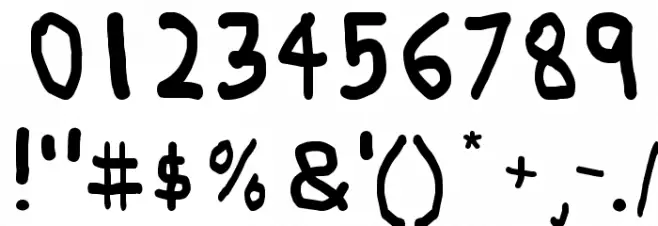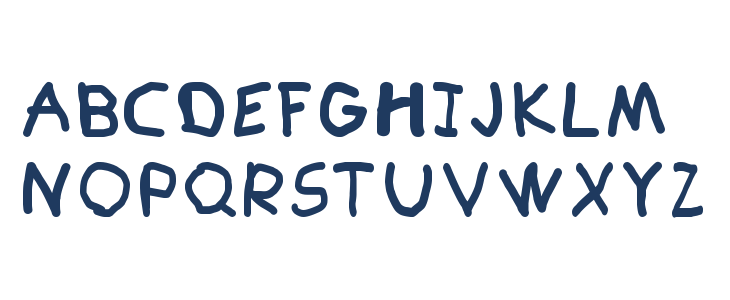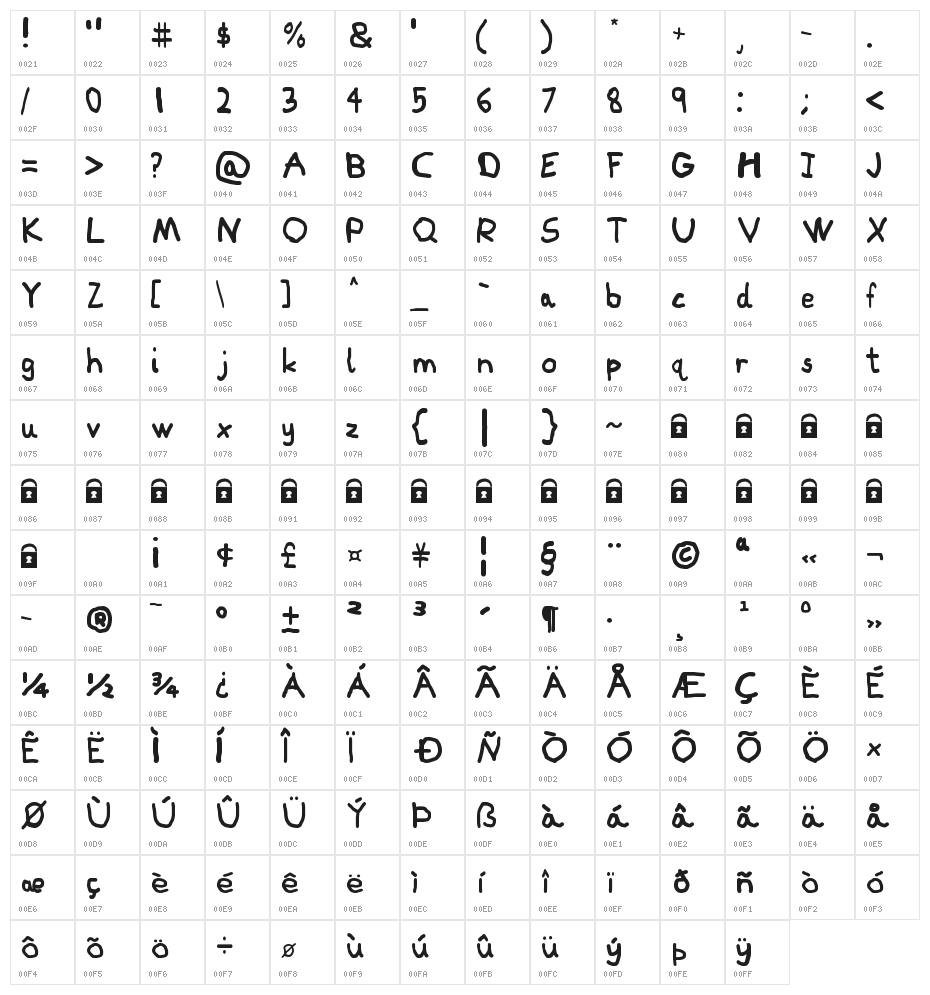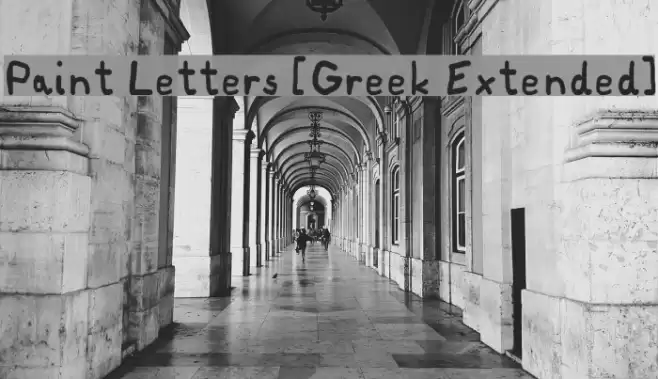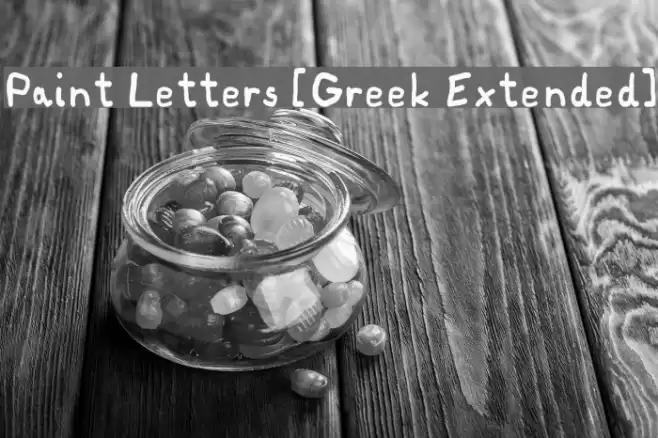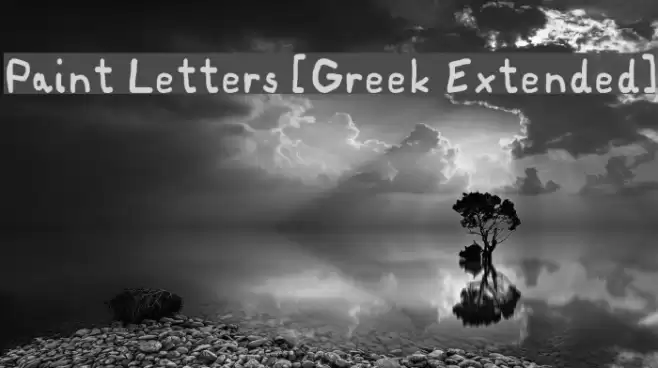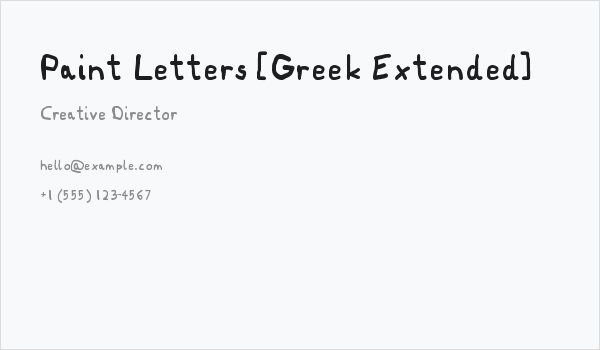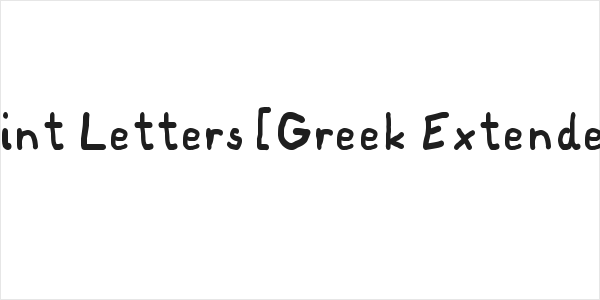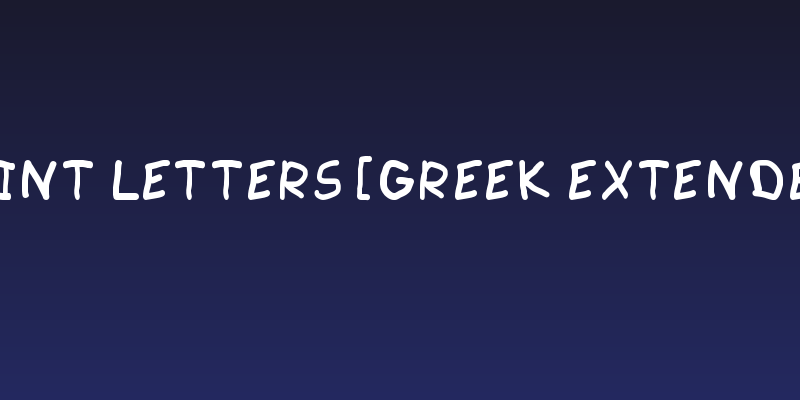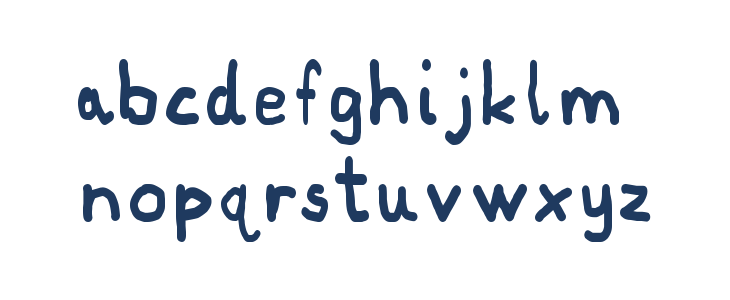
Paint Letters [Greek Extended] Font
Paint Letters [Greek Extended] Description
This font exudes a playful and informal style, characterized by its hand-drawn appearance. The letters are uneven and slightly irregular, giving it a whimsical and artistic feel. The strokes are bold and consistent, with a medium contrast that adds to its casual charm. The uppercase and lowercase letters maintain a consistent style, while the numerals and special characters complement the overall design. This font is perfect for projects that require a personal touch or a creative flair, such as children's books, greeting cards, or artistic posters.
A playful, hand-drawn font with bold, irregular strokes and medium contrast from Uncategorized fonts.
- Proposed Projects: Ideal for children's books, greeting cards, artistic posters, and creative projects.
- Use Case: Headlines, Logos, Artistic projects